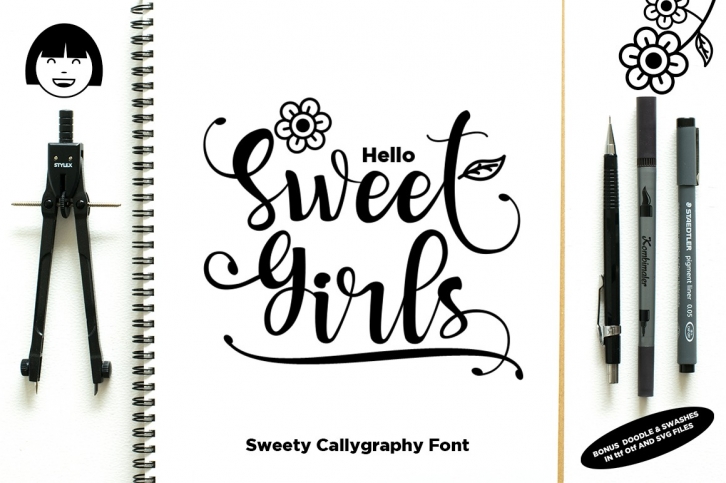
Sweet Girls is a great font that was designed by Haksen. Imagine the amount of combinations you can create using this font! The archive is 4.59 MB and it was released on June 6, 2018. Sweet Girls looks beautiful on wedding invitations, greeting cards, logos, posters, labels, t-shirt designs, logos, business cards and is perfect for use in ink or watercolor works, fashion, magazines, packaging and food menus, children's books and more!